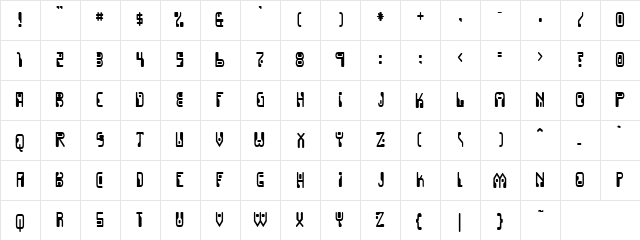
Sigma Pox Regular
Design Context for Sigma Pox Typeface
Sigma Pox is a composed and adaptable typeface that performs quietly and consistently across a wide range of design contexts.